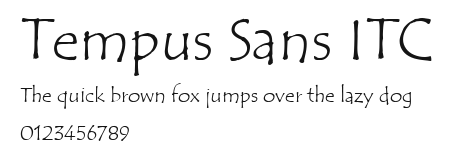
Tempus Sans ITC Preview
• Font Name: Tempus Sans ITC
• Full Font Name: Tempus Sans ITC
About Tempus Sans ITC.ttf
Tempus Sans ITC.ttf is a modern, elegant sans-serif font designed for ultimate readability and visual harmony. Perfect for branding, headlines, web design, and print materials.